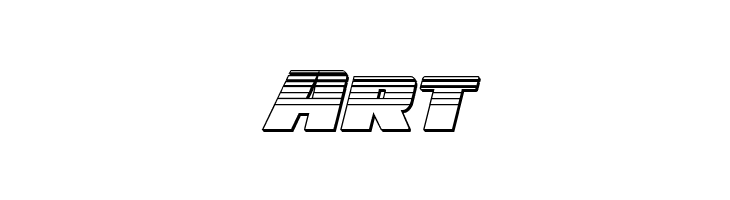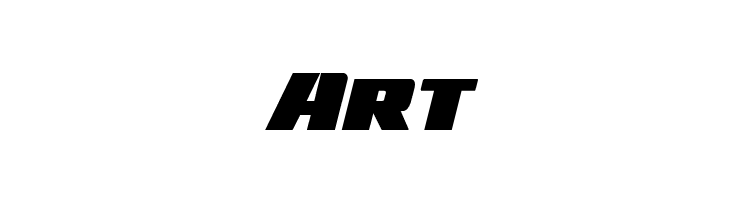
• Dark Alliance Italic
A bold, italicized font with a futuristic and angular design.
• Dark Alliance Laser Italic
A bold, futuristic italic font with sharp, angular edges.
• Dark Alliance Leftalic
• Dark Alliance Outline Italic
A bold, geometric outline font with an italic slant, offering a modern and dynamic look.
• Dark Alliance Platinum Italic
A bold, futuristic italic font with a three-dimensional effect and strong presence.
• Dark Crow Italic PERSONAL USE
A bold, brush-style italic font with dynamic strokes and artistic flair.
• Dark Dimension Italic
( Darrell Flood )
A bold, italic, and futuristic font with wide, angular characters.
• Dark Dominion 3D Italic
A bold, 3D italic font with a futuristic and dynamic style.
• Dark Dominion Bold Italic
A bold, italicized font with sharp angles and a dynamic, modern style.
• Dark Dominion Condensed Italic
A bold, condensed, and italicized font with high contrast and dynamic angles.